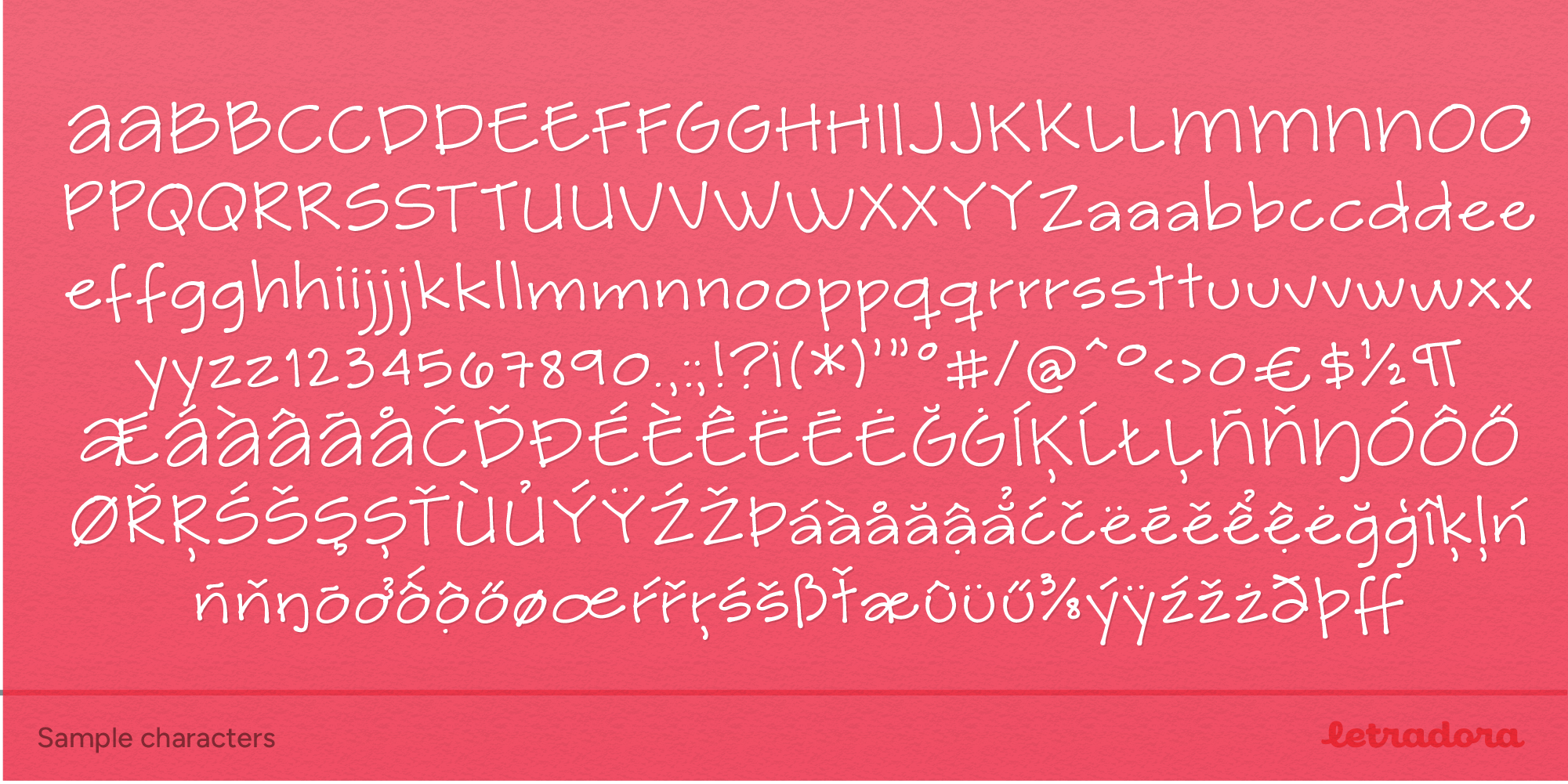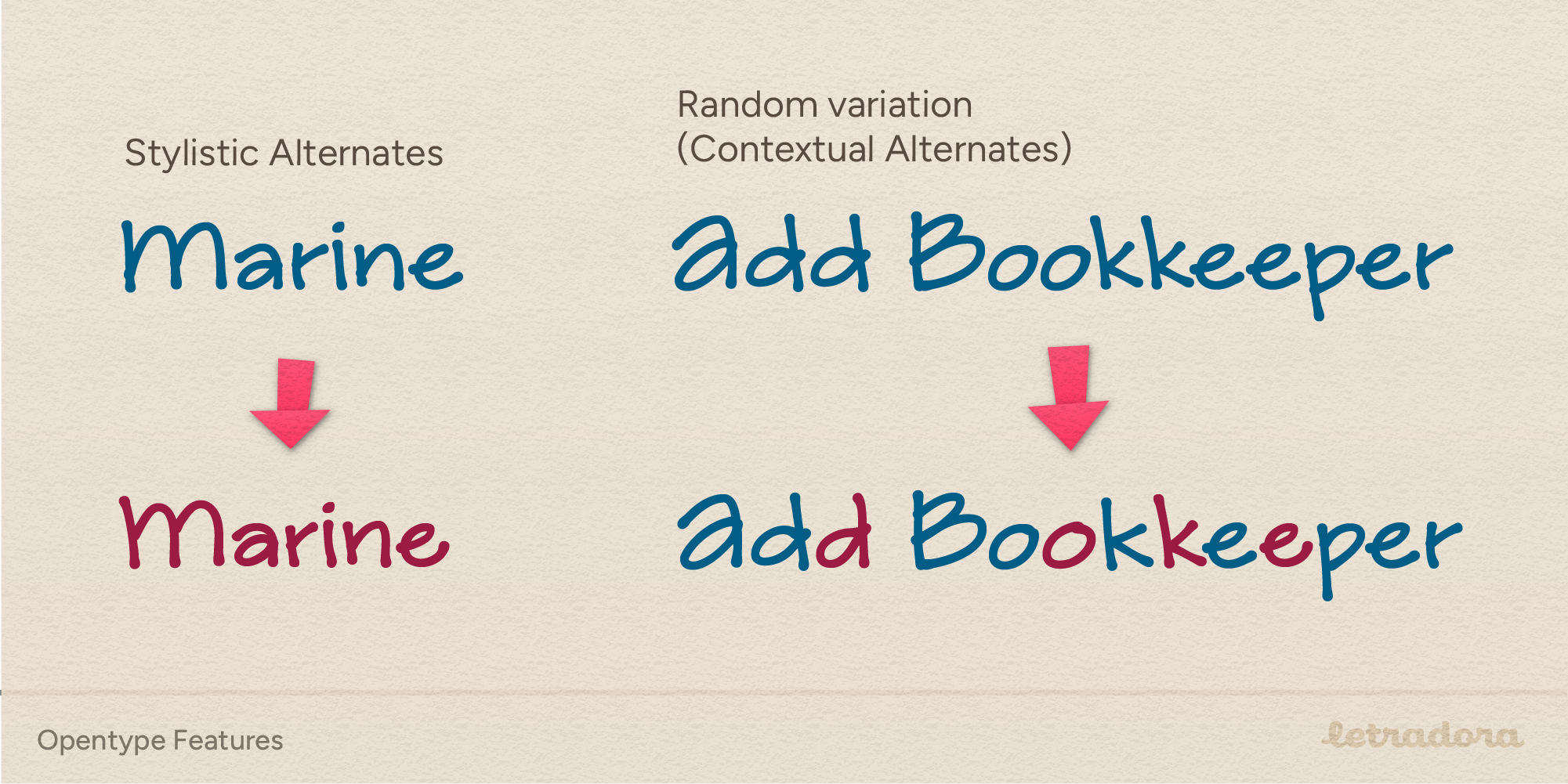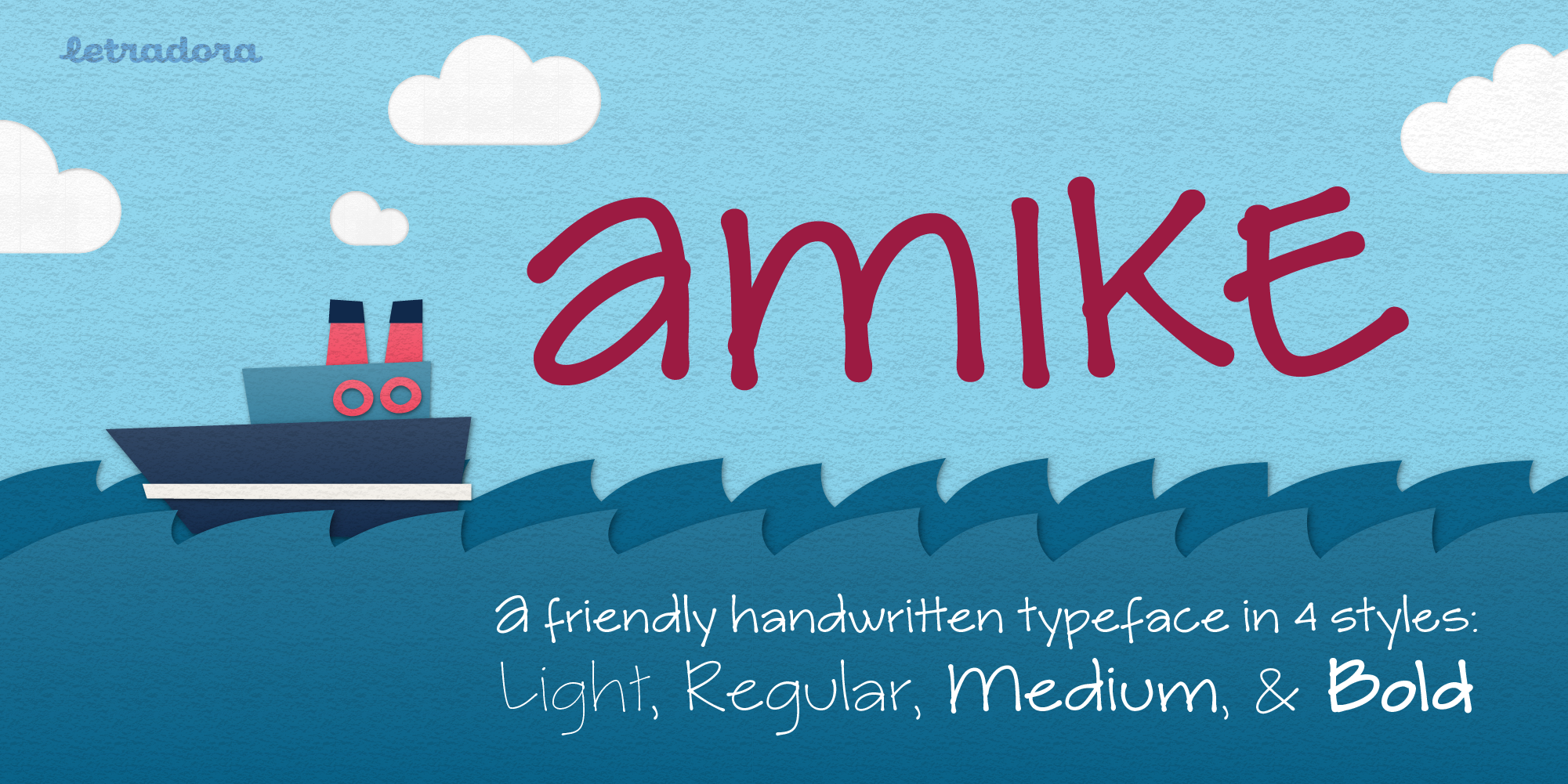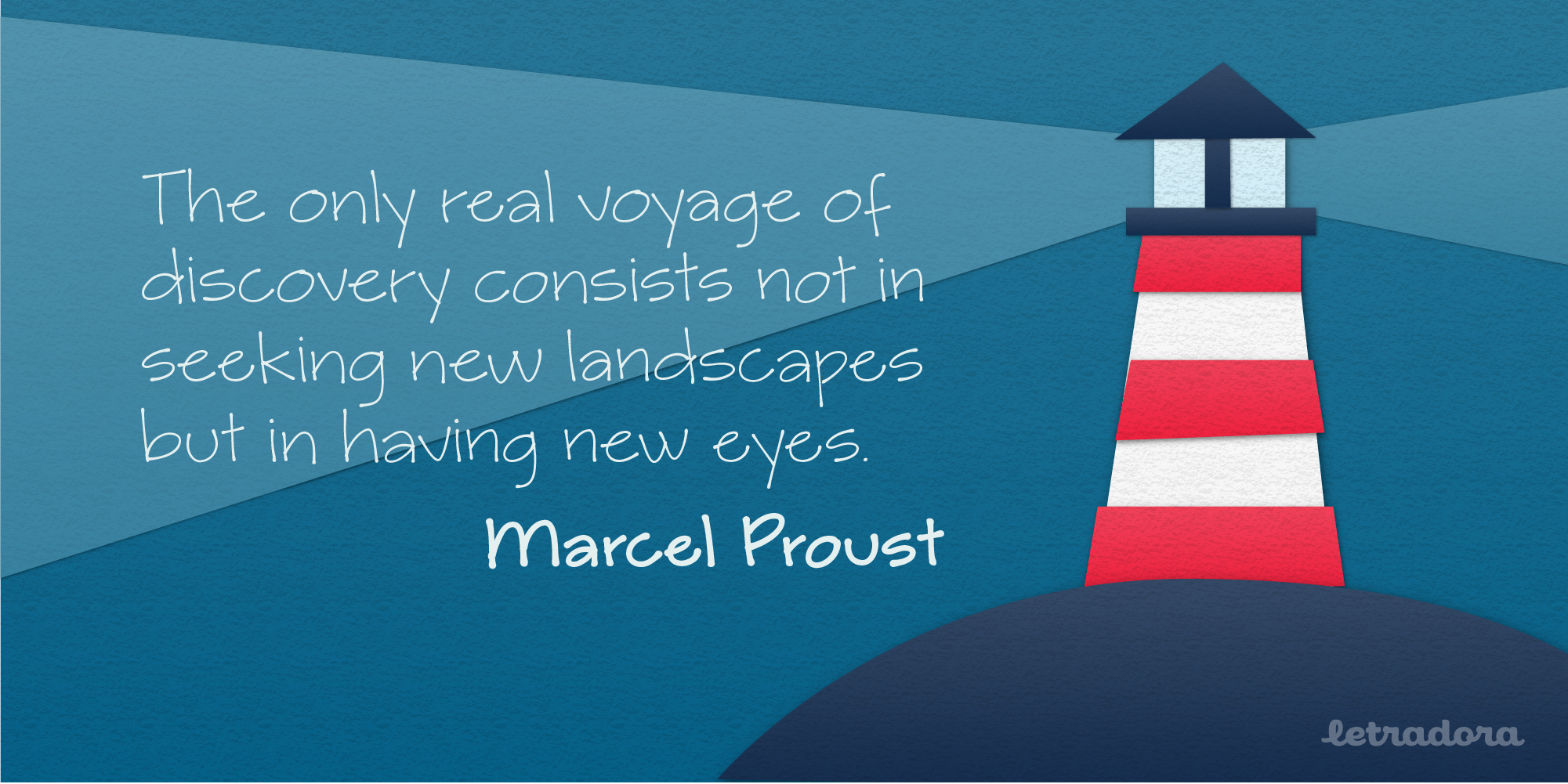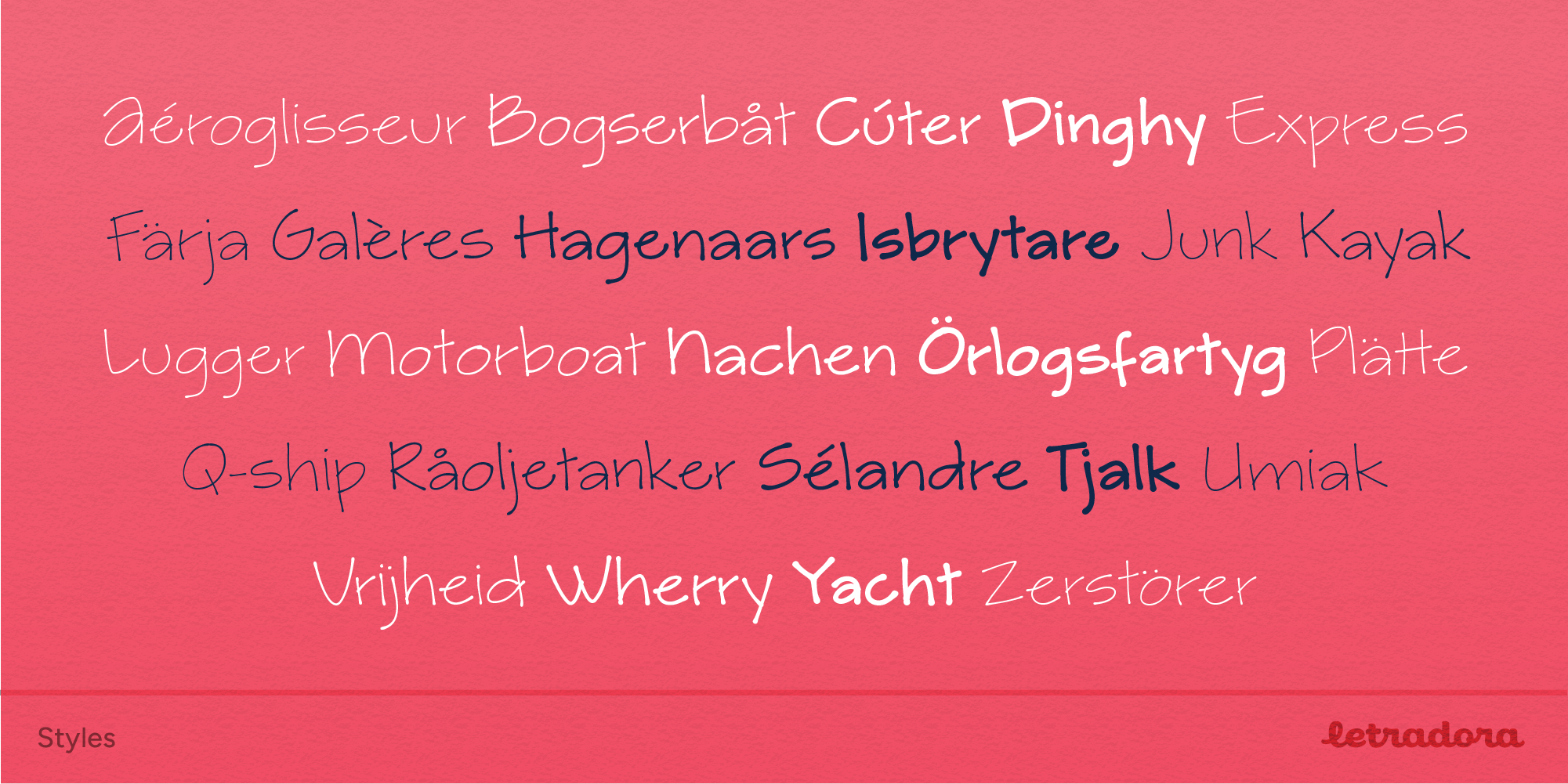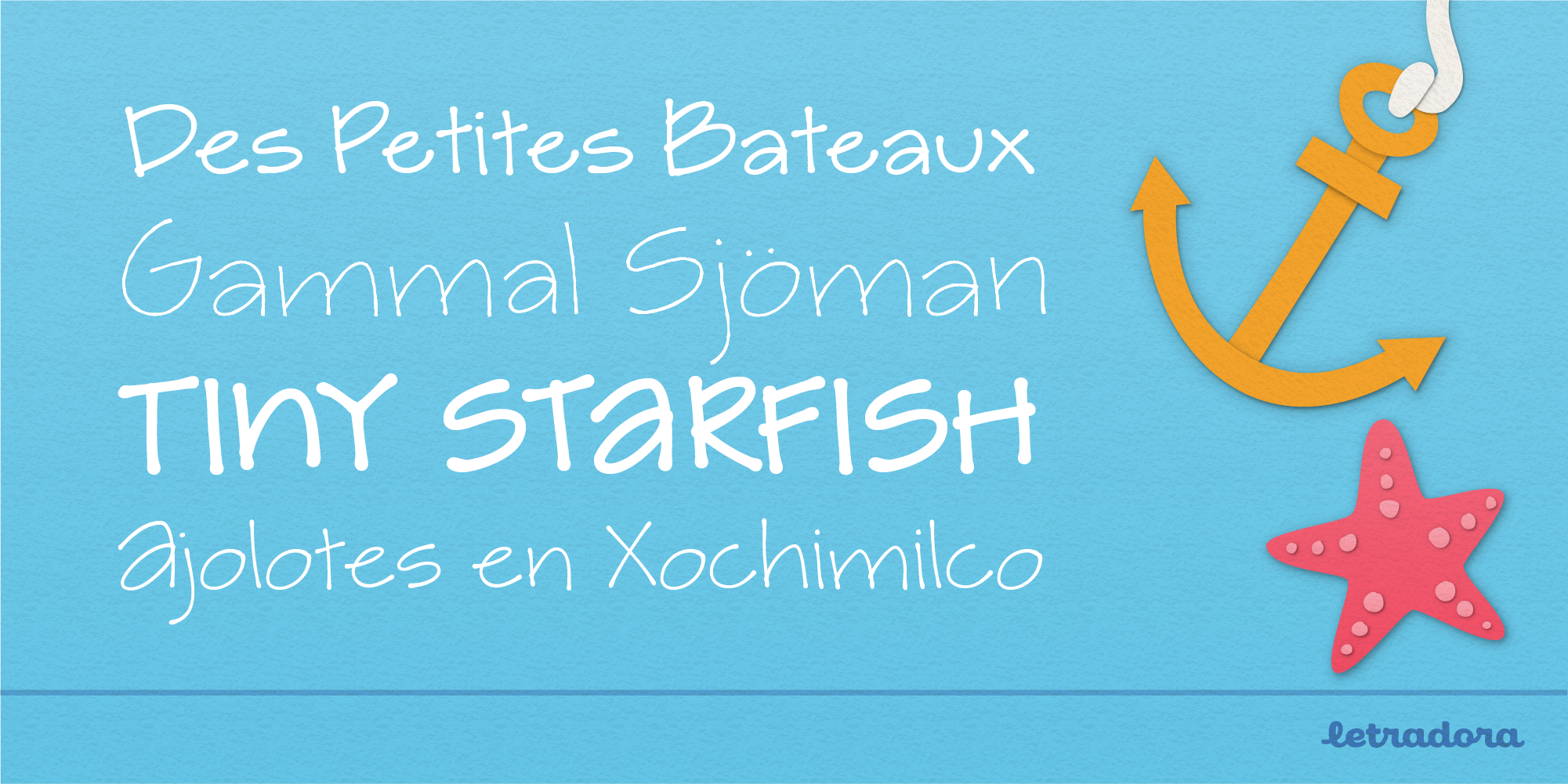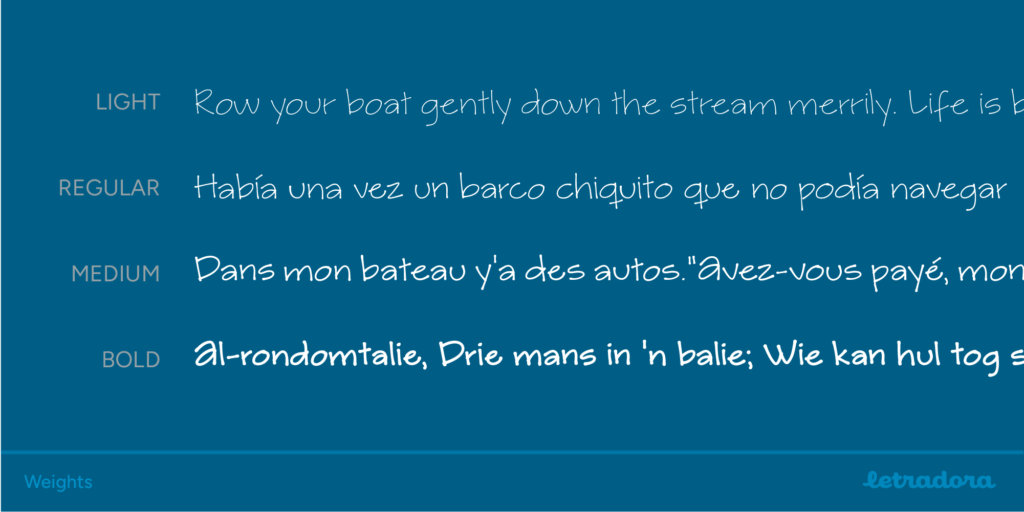
Amike
A unique handwriting font in 4 weights
Amike is a natural handwritten font, simulating a very neat, clean handwriting. It works well both as mixed case and all caps. It includes alternates for most characters, that can be used for a random mix using the Contextual Alternates Opentype feature to create a natural written look. It supports a wide character set, including most European languages & Vietnamese.